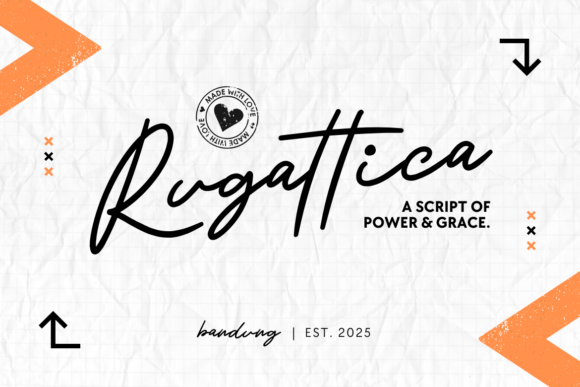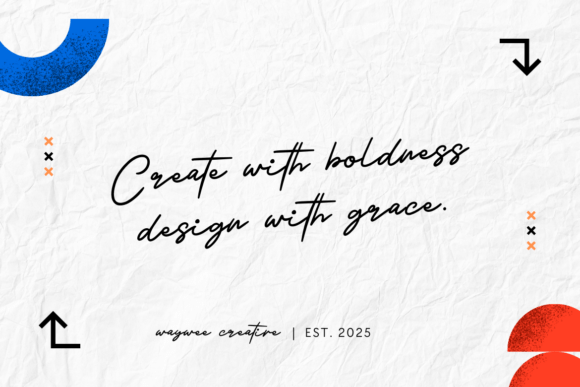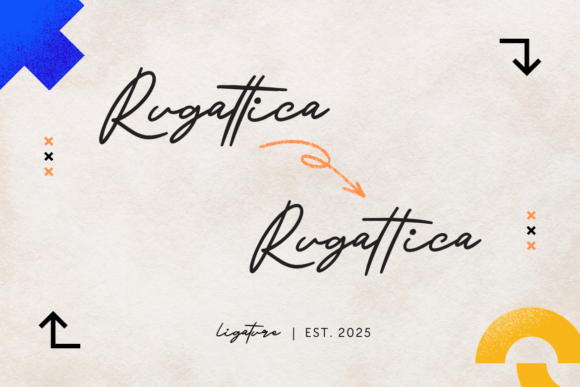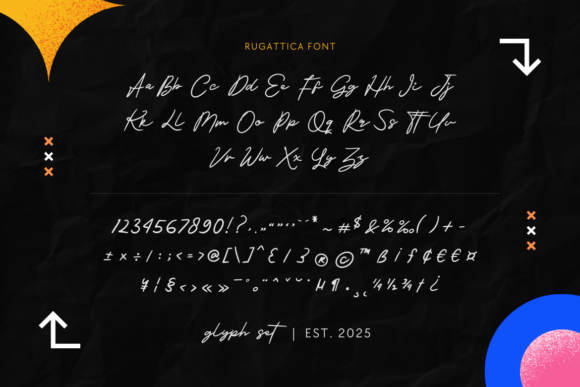
Rugattica Font
About the Rugattica Font
Experience the unique personality of Rugattica Font, a font designed for impact. ✨ Rugattica – A Script of Power & Grace ✨
Introducing Rugattica, a bold, handwritten script designed to bring confidence and elegance to your projects. With its expressive strokes and seamless ligatures, Rugattica blends modern sophistication with effortless charm, making it the perfect choice for branding, editorial designs, invitations, and beyond.
Bold & Dynamic – Every stroke is crafted precisely, exuding strength and authenticity.
Smooth & Elegant Flow – Natural connections and stylish ligatures enhance readability and aesthetics.
Versatile & Timeless – Perfect for logos, wedding stationery, packaging, social media, and quotes.
Rugattica adapts beautifully to any creative vision, whether you seek modern minimalism or artistic expression.
✨ Unleash your creativity with Rugattica – Where bold strokes meet timeless elegance! ✨
Rugattica Font Usage Examples
Rugattica Font Example